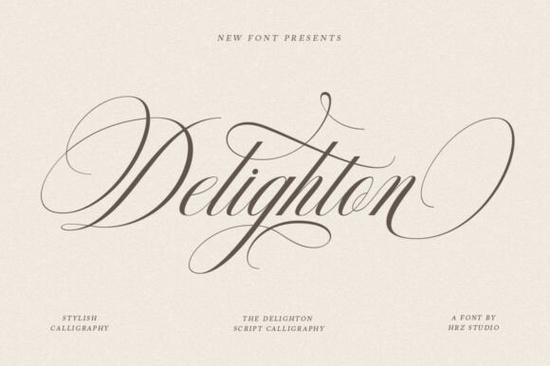
Looking for a script font that feels both timeless and fresh? Delighton Script Font delivers just that elegant, flowing letterforms with subtle modern details that make it stand out in any project. Whether you're designing wedding invitations, crafting packaging labels, or creating stationery for a boutique brand, this font brings a soft, feminine touch without sacrificing readability.
What makes Delighton Script Font special?
At first glance, you’ll notice the smooth connections between letters each one flows naturally, like ink drawn by hand. But what truly sets it apart are the alternate characters. You get multiple stylish variations for many letters, so your design never feels repetitive. Want a more delicate look? Use one style. Need something bolder and more expressive? Switch to another. This flexibility helps you tailor the font to your exact vision.
The base style is classic copperplate-inspired, but with a refined edge. It’s not overly ornate, which keeps it clean and professional. That balance is why it works well across so many uses: from formal invitations to casual social media graphics, from beauty product packaging to book covers.
Where can you use Delighton Script Font?
- Wedding & event invitations – Its graceful curves add romance without overwhelming the text.
- Brand logos & business cards – A touch of elegance goes a long way for fashion, skincare, or lifestyle brands.
- Menu designs & restaurant branding – Perfect for upscale cafes or boutique eateries wanting a refined feel.
- Print-on-demand products – Ideal for mugs, tote bags, and greeting cards where personalization matters.
- Magazines, books, and editorial layouts – Great for headings or pull quotes that need visual interest.
It's also great for digital use whether you’re building a website header or designing a social media post. The font renders clearly at different sizes, making it reliable for both print and screen.
How does it compare to other script fonts?
If you’ve explored similar styles, you might have come across options like Manciety, Phatin Angler, or The Skinny. While each has its strengths, Delighton stands out for its consistent flow and thoughtful alternates. It’s less dramatic than some bold scripts, yet still distinctive enough to be memorable. For those who love detail but want something easy to use, it strikes a nice middle ground.
Compared to Charlien, which leans more playful and informal, Delighton maintains a polished, slightly glamorous tone ideal when you want sophistication without fuss.
Why designers and small creators love it
For creatives working on tight deadlines, having a font that’s both beautiful and dependable is a relief. Delighton doesn’t require heavy tweaking. The built-in ligatures and stylistic alternates mean you can create professional-looking designs quickly. Plus, it pairs well with clean sans-serif fonts try it with a simple typeface like Lato or Montserrat for balanced layouts.
As someone who works with fonts regularly, I appreciate how well it handles spacing and line breaks. Even in longer blocks of text (like a menu or a short story), it remains readable and visually pleasing.